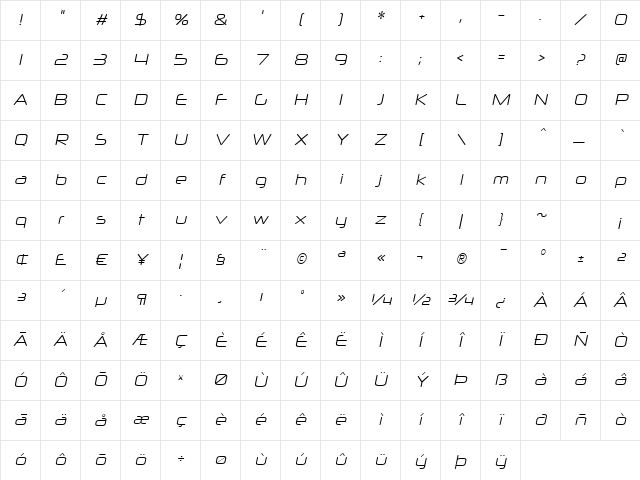
Neuropol X Lite Italic
Design Context for Neuropol X Lite
Neuropol X Lite is a composed and adaptable typeface that performs quietly and consistently across a wide range of design contexts. The slanted form adds forward momentum and visual energy.
Pro Tip: Use Neuropol X Lite for emphasis, pull quotes, and subheadings where its slanted energy can add rhythm to the layout.